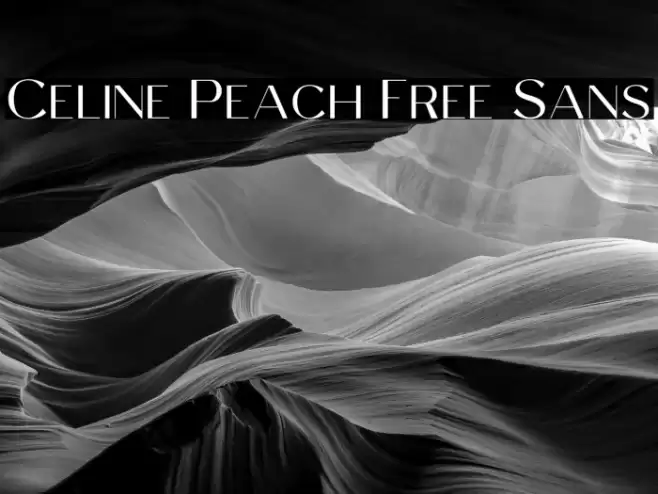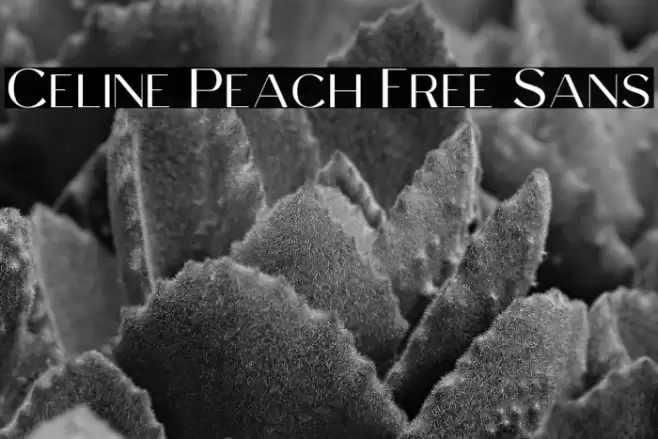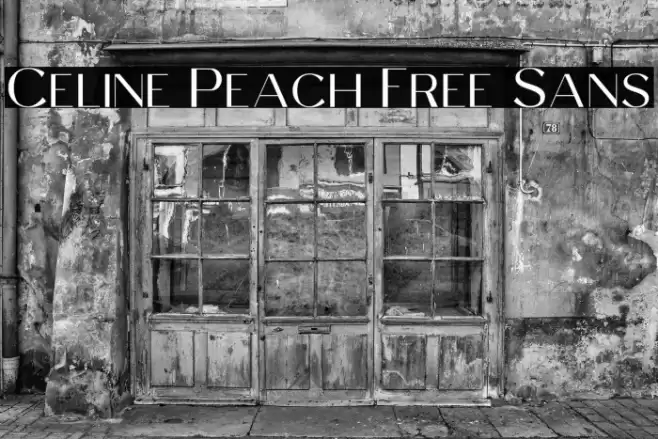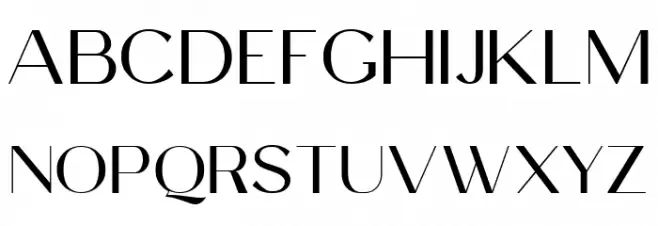
Celine Peach Free Sans Font
Celine Peach Free Sans Description
This font features a modern and elegant sans-serif style with clean lines and a sophisticated appearance. The uppercase letters are distinct with a slight geometric influence, providing a contemporary feel. The strokes are consistent, offering a balanced and harmonious look. The font maintains a professional and sleek aesthetic, making it suitable for various design applications. Its simplicity and clarity make it highly readable, while the subtle details add a touch of uniqueness.
A modern, elegant sans-serif font with clean lines and a sophisticated appearance from Regular fonts.
- Font: Celine Peach Free Sans
- Proposed Projects: Ideal for branding, editorial design, advertising, and web design projects that require a modern and professional look.